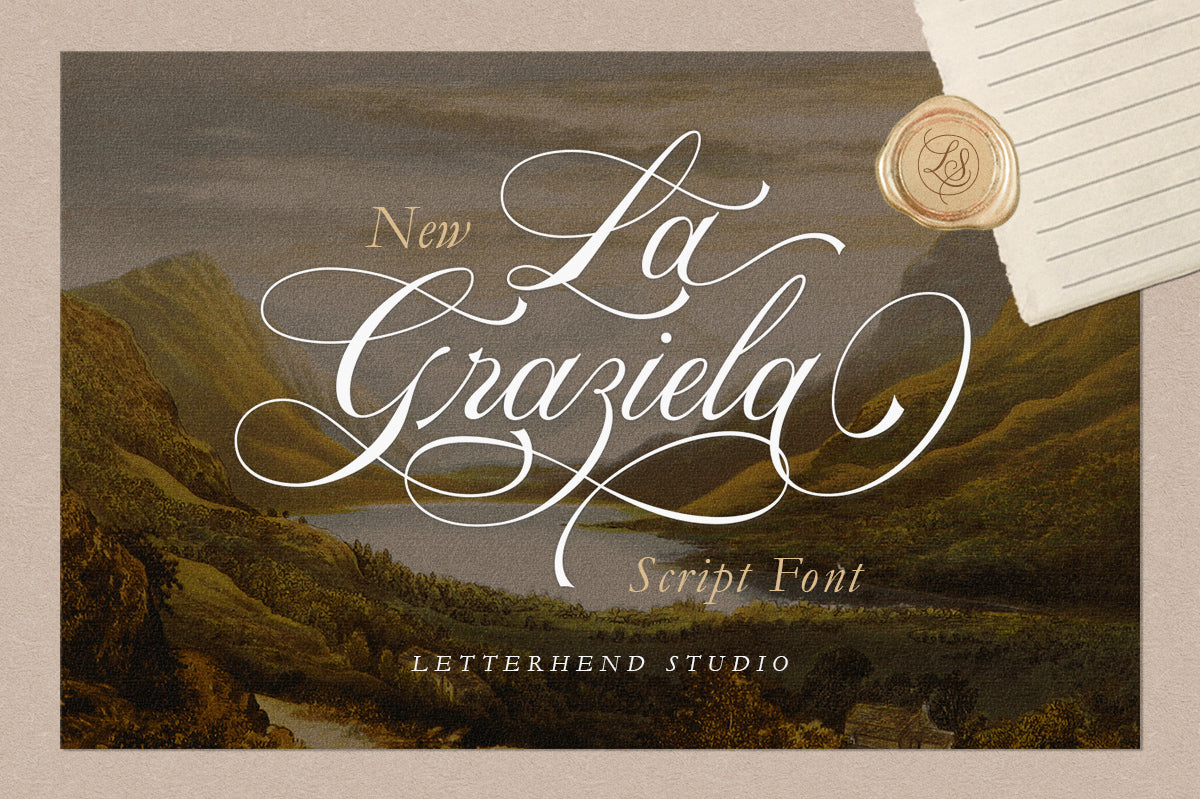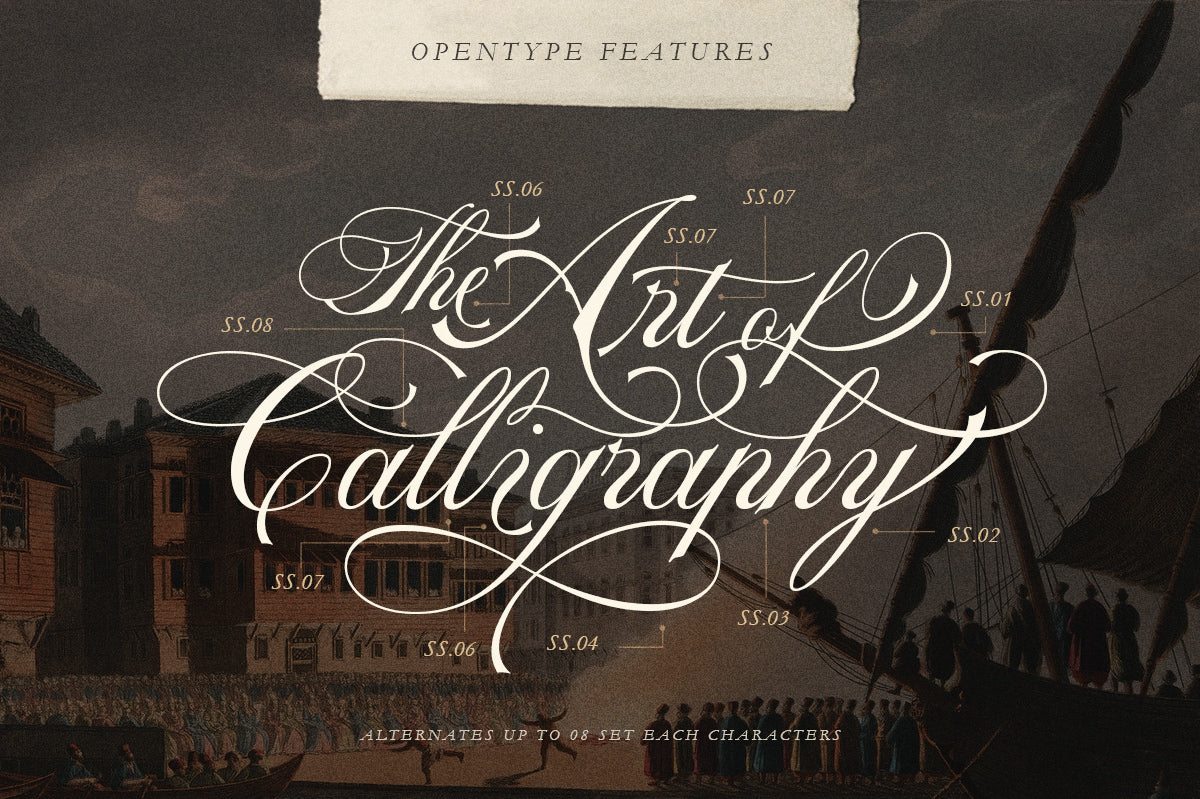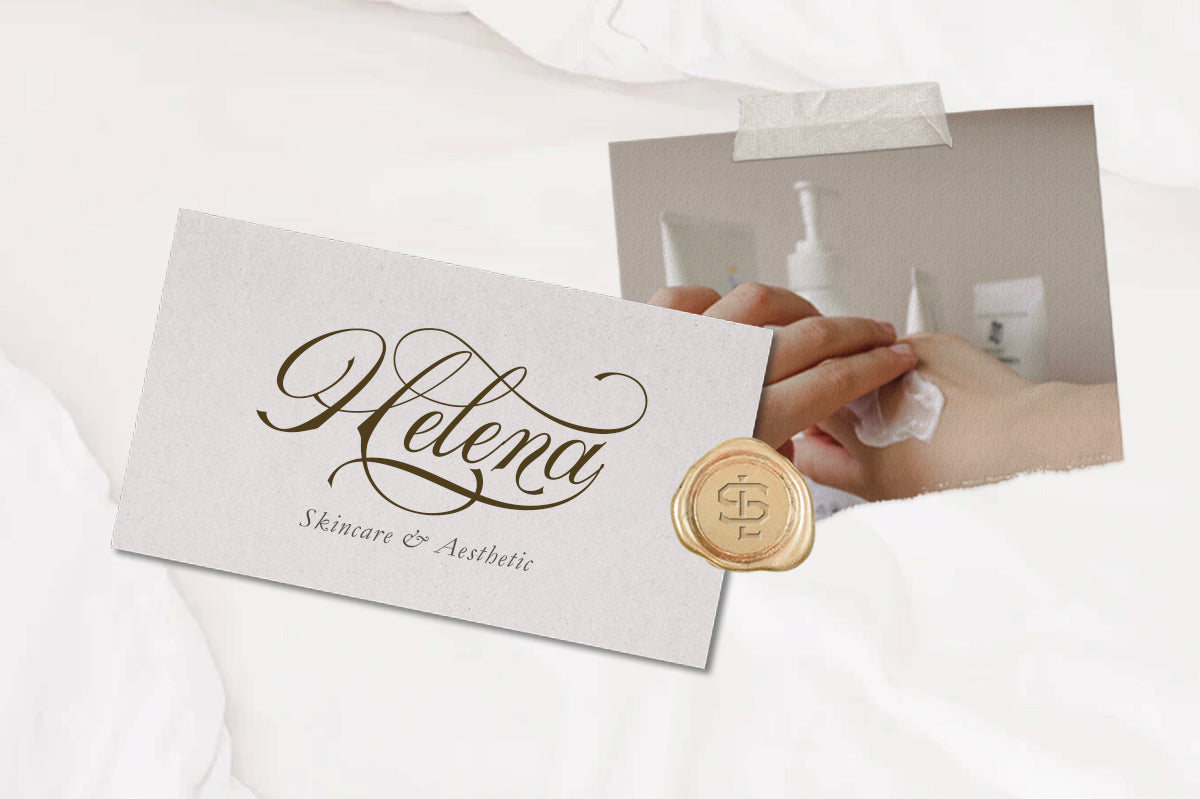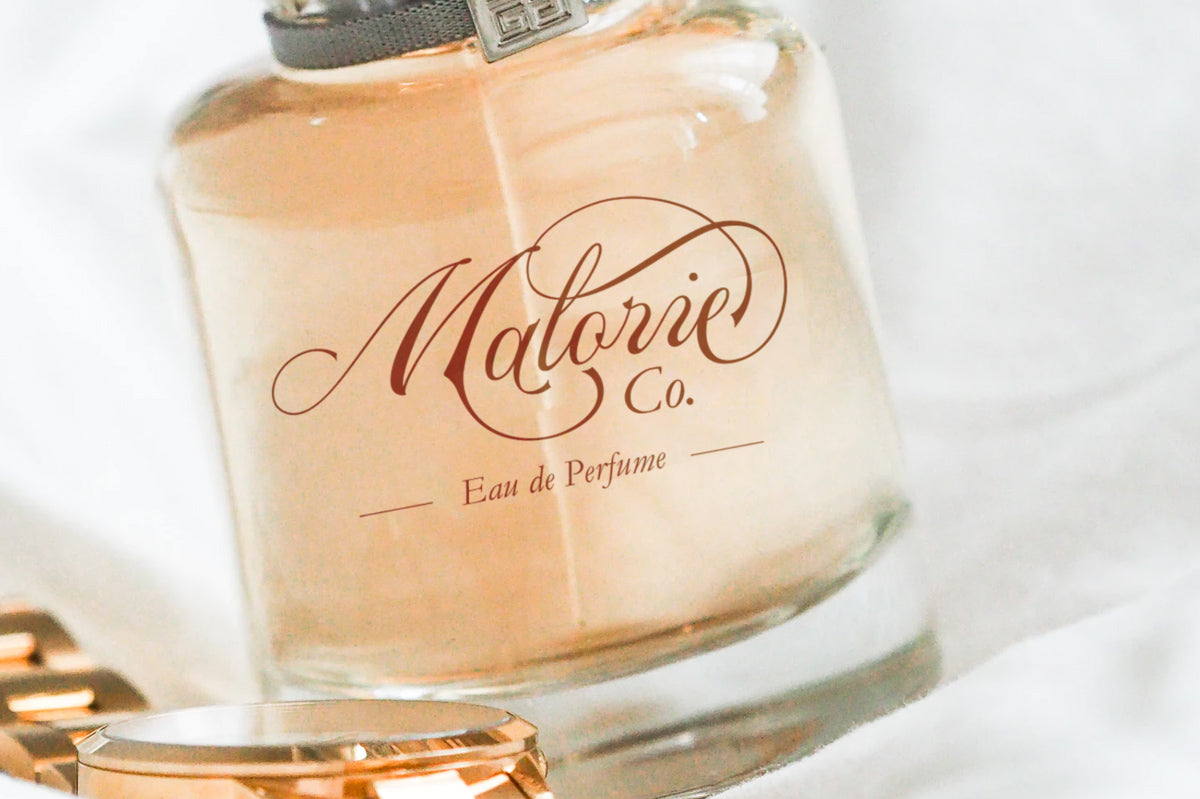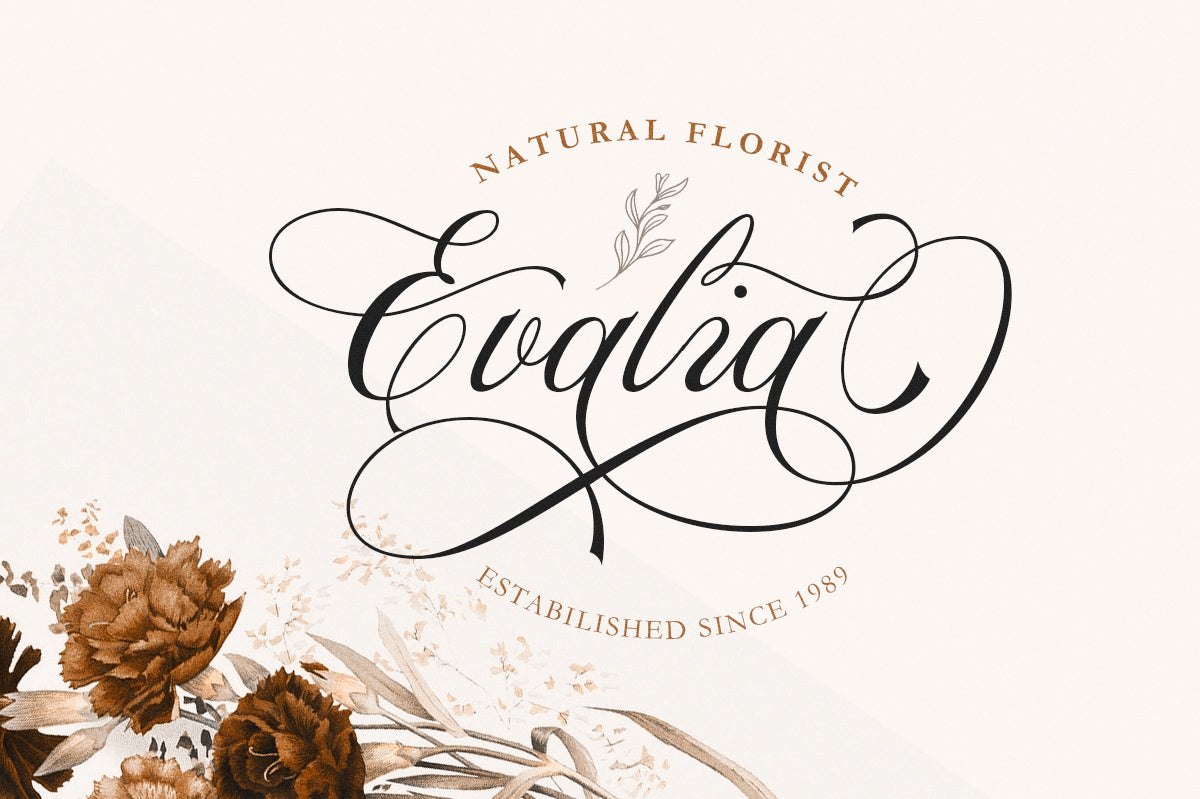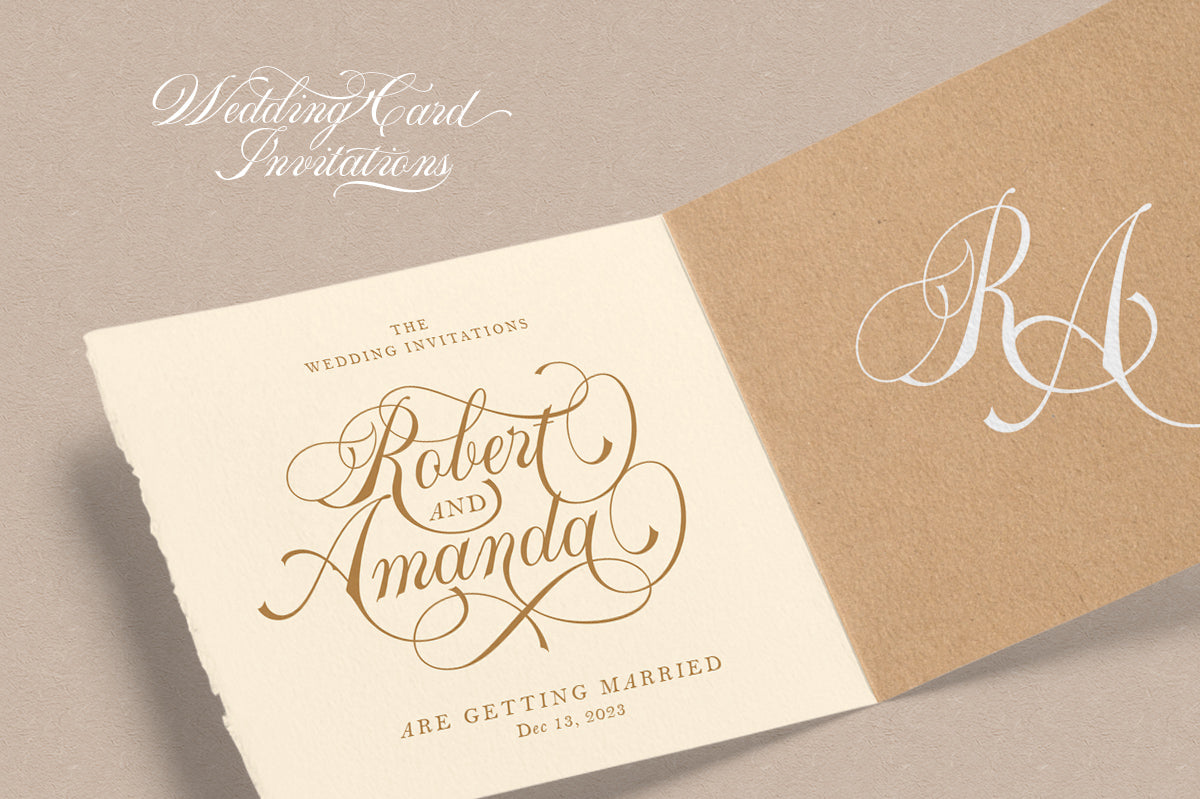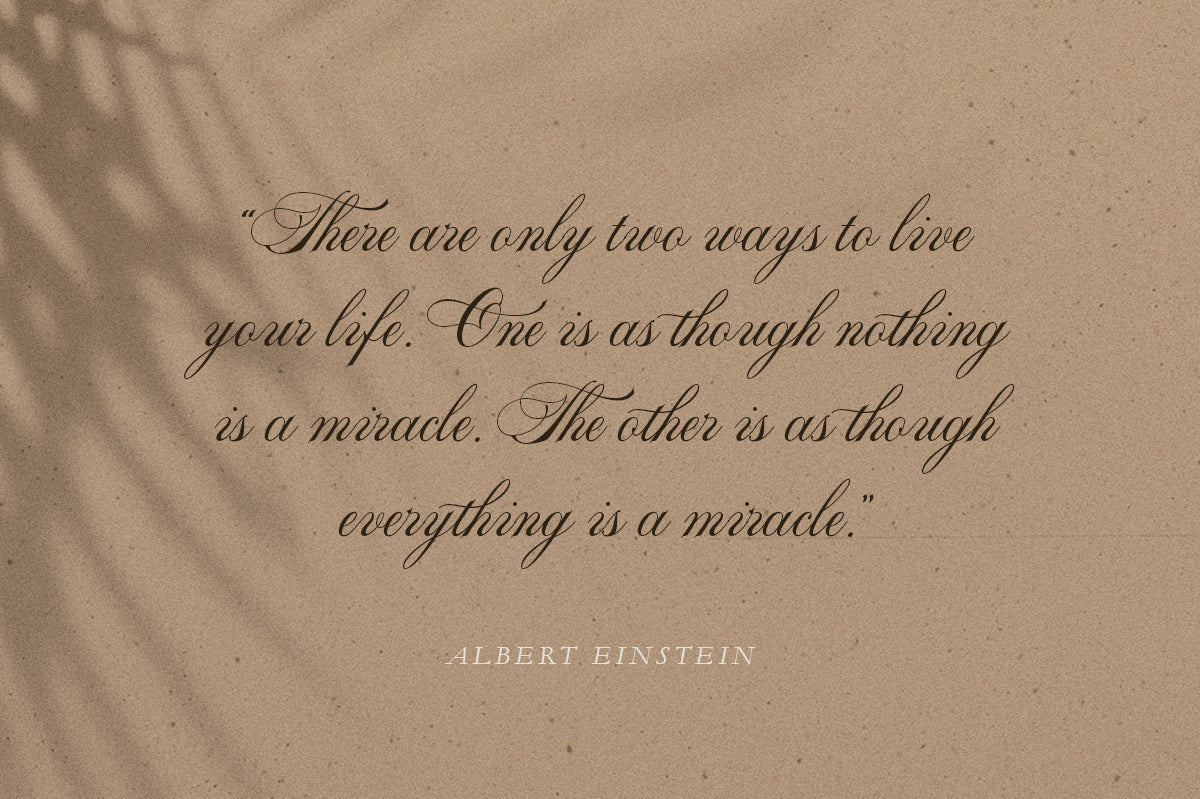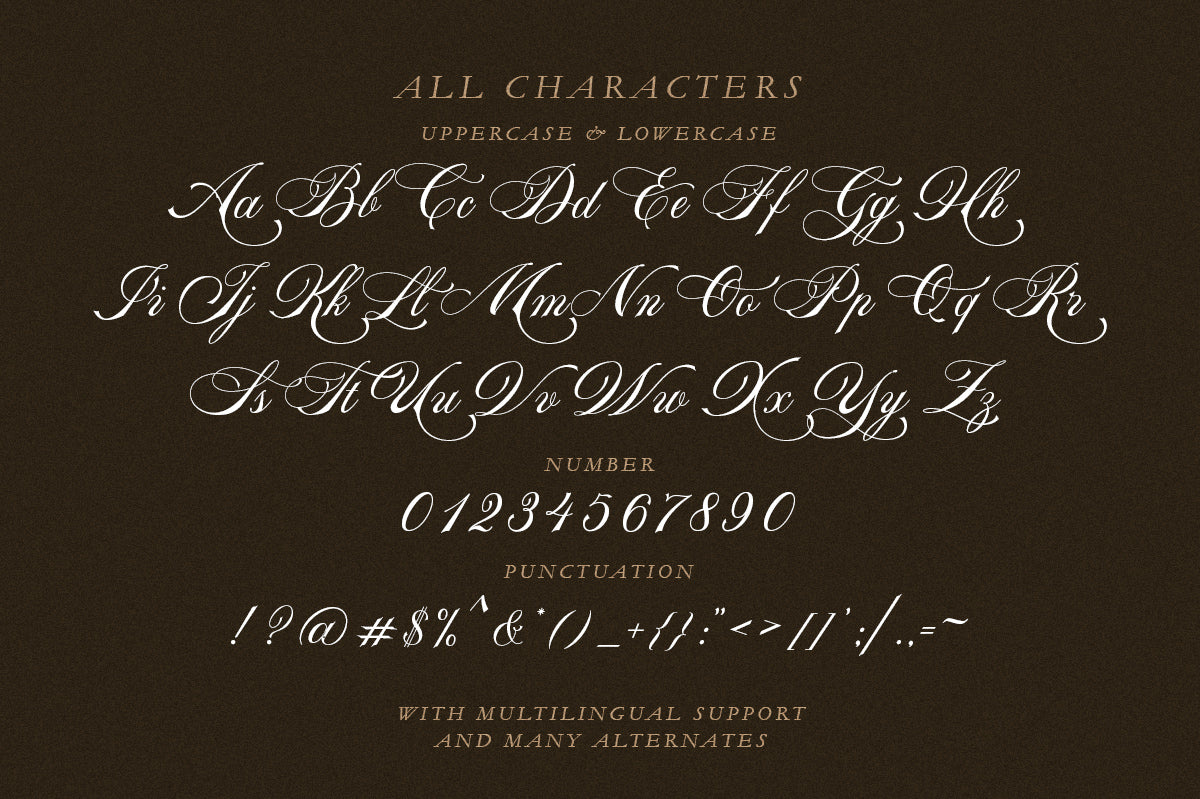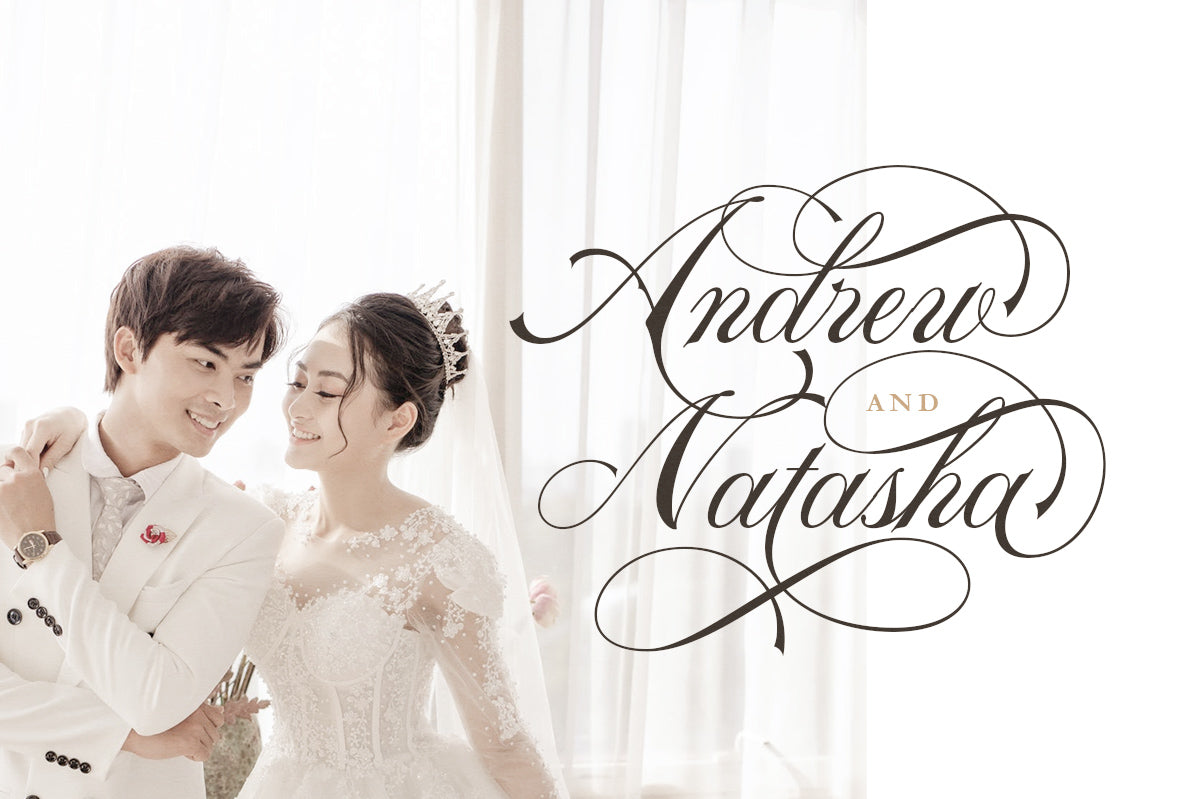
La Graziela
Please welcome our newest script typeface, La Graziela. A beautiful and elegant script featuring numerous swashes that allow you to create stunning lettering instantly. It also includes a variety of stylistic alternates to choose from.
This font is perfectly suited for use in logos and various formal applications such as invitations, labels, magazines, books, greeting or wedding cards, packaging, fashion, makeup, stationery, novels, and any advertising purpose.
Features:
uppercase & lowercase
numbers and punctuation
multilingual
alternates and ligatures
swashes